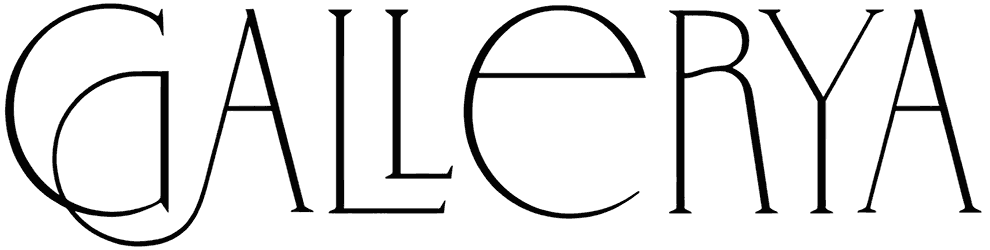
Gallerya Font
Gallerya is a delicate serif font that provides an incredible opportunity for you to bring all of your creative ideas, like business cards, magazines, presentations, web pages, and headlines, to real life. Its adorable mixture of uppercase and lowercase letters can make conveying a feeling of authenticity, momentum, confidence, or professionalism a piece of cake.